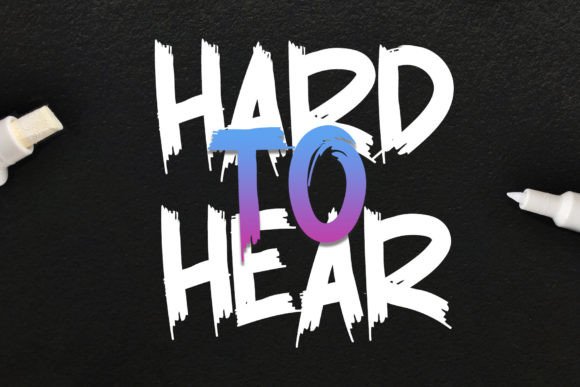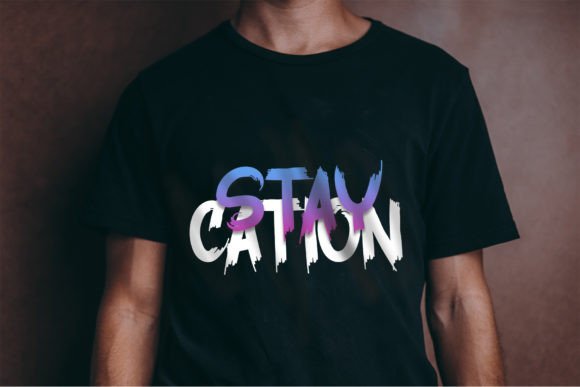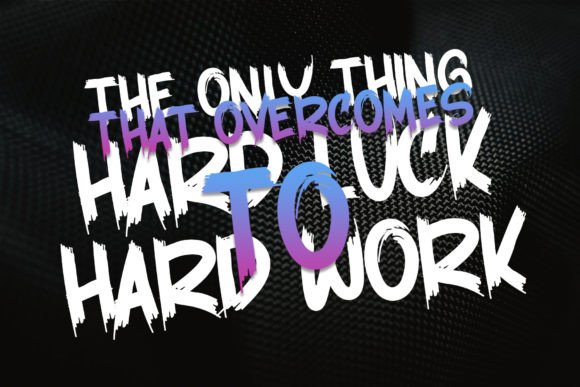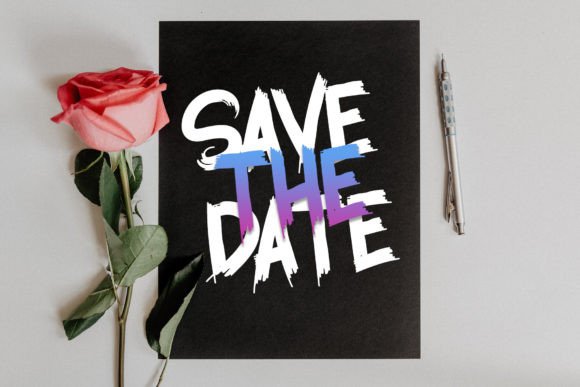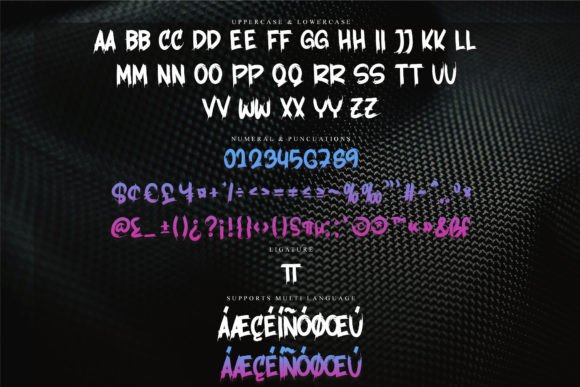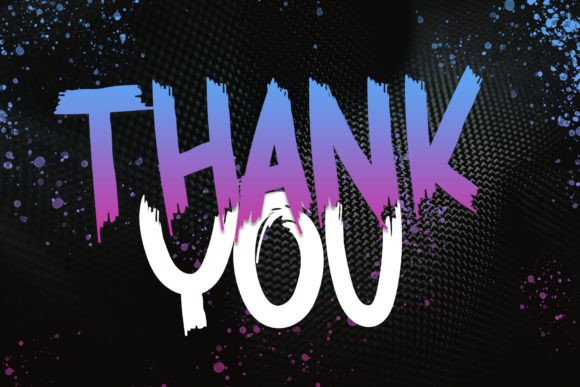
Introducing Brush Point Font: Elevate Your Designs with Timeless Elegance
In the world of typography, few fonts manage to capture the essence of classic calligraphy while still exuding a modern vibe. Brush Point Font is one such gem that seamlessly blends traditional elegance with contemporary flair. This stylish brush font is designed to bring an impeccable form and a balanced variation to your projects, making it a perfect choice for designers and crafters looking to add a touch of sophistication.
The Inspiration Behind Brush Point Font
Brush Point Font draws its inspiration from timeless classic calligraphy, a art form that has been cherished for centuries for its beauty and expressiveness. The creators of Brush Point have meticulously studied the fluid strokes and elegant letterforms of traditional calligraphy, translating these elements into a digital font that is both versatile and visually appealing.
Key Features of Brush Point Font
• Contemporary Atmosphere: Despite being inspired by classic calligraphy, Brush Point Font boasts a contemporary atmosphere that makes it suitable for modern designs.
• Impeccable Form: Each letterform in Brush Point is crafted with precision, ensuring that the font maintains a high level of readability and aesthetic appeal.
• Balanced and Varied: The font offers a balanced and varied design, which means it can be used for a wide range of projects, from elegant headings to more casual, creative endeavors.
Why Choose Brush Point Font?
For designers and crafters, the choice of font can make or break a project. Here are a few reasons why Brush Point Font stands out:
• Versatility: Brush Point Font is incredibly versatile, making it suitable for various applications, including branding, packaging, web design, and more.
• Elegance: The font’s elegant design adds a touch of sophistication to any project, helping you to create memorable and impactful designs.
• Legibility: Despite its artistic nature, Brush Point Font maintains excellent legibility, ensuring that your message is conveyed clearly and effectively.
Using Brush Point Font in Your Projects
Brush Point Font can elevate a wide range of projects, including:
• Branding and Logo Design: Use Brush Point Font to create a distinctive and elegant brand identity.
• Stationery and Packaging: Add a touch of class to your stationery, packaging, and product labels.
• Web Design: Enhance your website’s typography with Brush Point Font, making it more engaging and sophisticated.
• Social Media Graphics: Create eye-catching social media graphics and posts that stand out.
Tips for Getting the Most Out of Brush Point Font
To maximize the impact of Brush Point Font in your designs, consider the following tips:
• Pair with Complementary Fonts: Experiment with pairing Brush Point Font with complementary fonts to create visual interest and hierarchy.
• Play with Colors: Take advantage of Brush Point Font’s versatility by using it in different colors and gradients.
• Experiment with Sizes: Don’t be afraid to vary the font size to create emphasis and add dynamism to your designs.
Brush Point Font is a stylish and elegant brush font that brings a touch of timeless classic calligraphy to your designs. With its contemporary atmosphere, impeccable form, and balanced variation, it’s an excellent choice for designers and crafters looking to elevate their projects. Whether you’re working on branding, web design, or any other creative endeavor, Brush Point Font is sure to make a lasting impression.